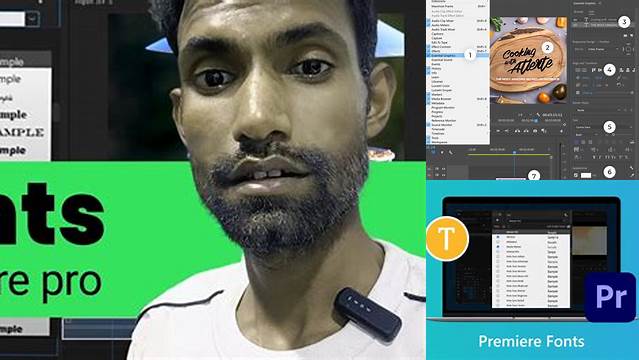
Add Custom Fonts In Premiere Pro: A Step-by-Step Guide
Adding custom fonts in Premiere Pro can really elevate your video projects, giving them a unique and professional touch. No more sticking to the same old default fonts! This guide will walk you through everything you need to know to install and use your favorite fonts in Premiere Pro, so let's dive in, guys!
1. Why Use Custom Fonts in Premiere Pro?
Okay, so why even bother with custom fonts? Well, think about it – the right font can make a huge difference in the overall look and feel of your video. Using custom fonts allows you to inject personality, maintain brand consistency, and create visually stunning titles, lower thirds, and text overlays. Imagine using a sleek, modern font for a tech review video or a whimsical, handwritten font for a travel vlog. The possibilities are endless! Premiere Pro's built-in font selection is decent, but it can feel a bit limited after a while. Custom fonts open up a whole new world of creative options, helping you to stand out from the crowd and create truly memorable content.
2. Finding the Perfect Font for Your Project
Before you start installing, you gotta find some awesome fonts! There are tons of websites out there offering both free and paid fonts. Some popular options include Google Fonts, DaFont, Adobe Fonts, and Font Squirrel. Google Fonts is a fantastic resource for free, high-quality fonts that are easy to download and use. DaFont is another great option, with a massive library of fonts covering just about every style imaginable. Adobe Fonts is included with your Adobe Creative Cloud subscription, giving you access to thousands of professional fonts. Font Squirrel is another solid choice for free fonts, especially if you're concerned about commercial use licenses. When choosing a font, consider the overall tone and style of your video. A formal documentary might call for a classic serif font, while a fun, energetic vlog might benefit from a bold, sans-serif font. Think about readability too – you want your text to be clear and easy to read, even on smaller screens.
3. Downloading and Installing Fonts on Your System
Alright, you've found some fonts you love. Now it's time to get them onto your computer! The process is pretty straightforward. First, download the font files from the website. Most fonts come in a .zip file, so you'll need to extract the contents. Inside the extracted folder, you'll usually find one or more font files, typically in .otf or .ttf format. To install the font on Windows, simply right-click on the font file and select "Install." On a Mac, you can double-click the font file, and it will open in Font Book, where you can click "Install Font." Make sure to close and reopen Premiere Pro after installing the font, just to ensure it recognizes the new addition. Sometimes, your system might require a restart to properly register the font, so keep that in mind if you don't see it in Premiere Pro right away.
4. Step-by-Step Guide: Adding Fonts to Premiere Pro (Detailed)
Let’s get down to the nitty-gritty. Here’s a step-by-step guide on adding fonts to Premiere Pro:
- Download Your Font: As mentioned earlier, download the font file (.otf or .ttf) from your chosen source.
- Install the Font: On Windows, right-click the font file and select "Install." On Mac, double-click the file and click "Install Font" in Font Book.
- Restart Premiere Pro: Close Premiere Pro completely and reopen it. This step is crucial for the program to recognize the newly installed font.
- Open Your Project: Launch your project in Premiere Pro.
- Select the Text Tool: In the Project Panel, select the Text tool (the "T" icon) from the toolbar.
- Create a Text Layer: Click on your video in the Program Monitor to create a new text layer.
- Type Your Text: Type the text you want to display.
- Access the Essential Graphics Panel: Go to Window > Essential Graphics to open the Essential Graphics panel.
- Choose Your Font: In the Essential Graphics panel, under the “Text” section, you’ll see a font dropdown menu. Click on the dropdown and scroll through the list to find your newly installed font. If you don't see it, double-check that you installed it correctly and restarted Premiere Pro.
- Customize Your Text: Once you’ve selected your font, you can customize it further by adjusting the font size, style (bold, italic), color, and other properties in the Essential Graphics panel.
5. Troubleshooting Font Issues in Premiere Pro
Sometimes, things don't go quite as planned, right? If you're having trouble getting your custom fonts to show up in Premiere Pro, don't panic! Here are a few common issues and how to fix them:
- Font Not Appearing: If your font isn't showing up in the font list, the first thing to do is double-check that you installed it correctly. Make sure you followed the installation steps for your operating system and restarted Premiere Pro. If it still doesn’t show up, try restarting your computer. Sometimes, a simple reboot can do the trick.
- Font Displaying Incorrectly: If your font is displaying incorrectly (e.g., weird characters or spacing issues), it could be a font compatibility problem. Some fonts aren’t fully compatible with all software. Try using a different font or checking if there’s an updated version of the font available. Also, ensure that you have the correct font encoding settings in Premiere Pro (usually set to “Default”).
- Font Corruption: Rarely, font files can become corrupted. If you suspect this, try downloading the font again from the original source. If the problem persists, the font itself might be the issue, and you might need to find an alternative.
6. Managing Multiple Fonts for Different Projects
If you’re like me, you probably have a ton of fonts installed on your system. While having options is great, it can also become a bit overwhelming. Managing your fonts effectively is key to staying organized and ensuring smooth workflow. One tip is to create font collections or folders for different projects. For example, you might have a folder for “Corporate Fonts,” another for “Vlog Fonts,” and so on. This makes it easier to find the right font for each project without scrolling through a massive list. Font management software can also be super helpful. Programs like FontBase and NexusFont allow you to organize, activate, and deactivate fonts as needed. This is especially useful if you work on projects with specific font requirements and don’t want to keep all your fonts active all the time.